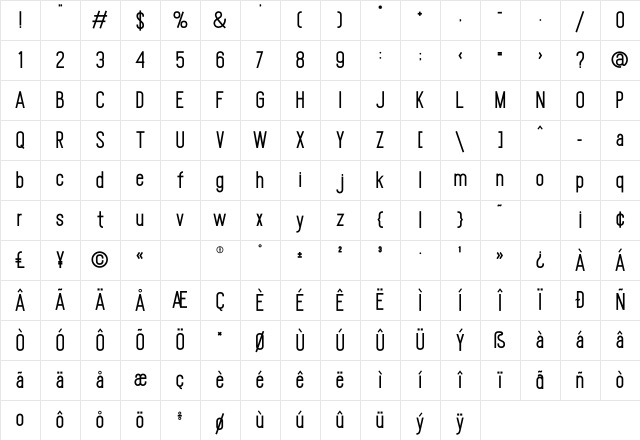
Complete Rolever Semibold glyph index. Displaying only characters natively supported by Rolever Semibold font.
Rolever is a composed and adaptable typeface that performs quietly and consistently across a wide range of design contexts. Its bold stroke weight gives it real presence on the page.